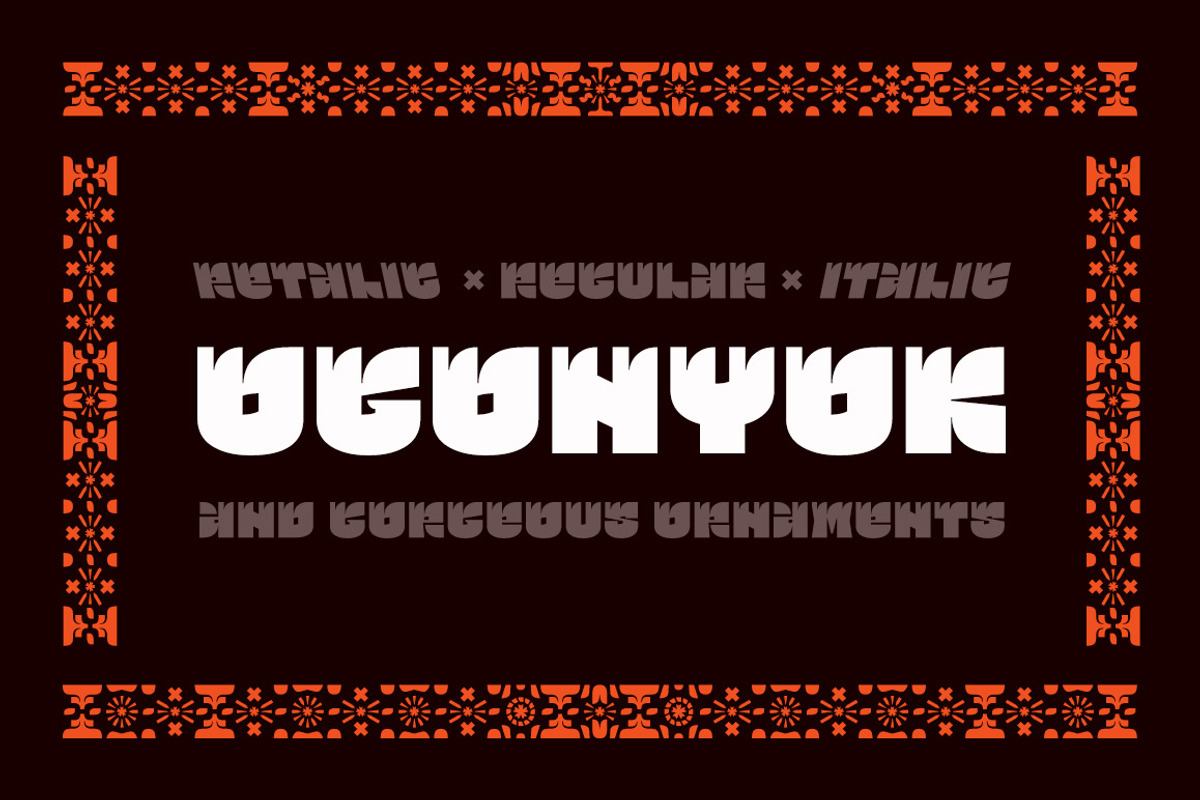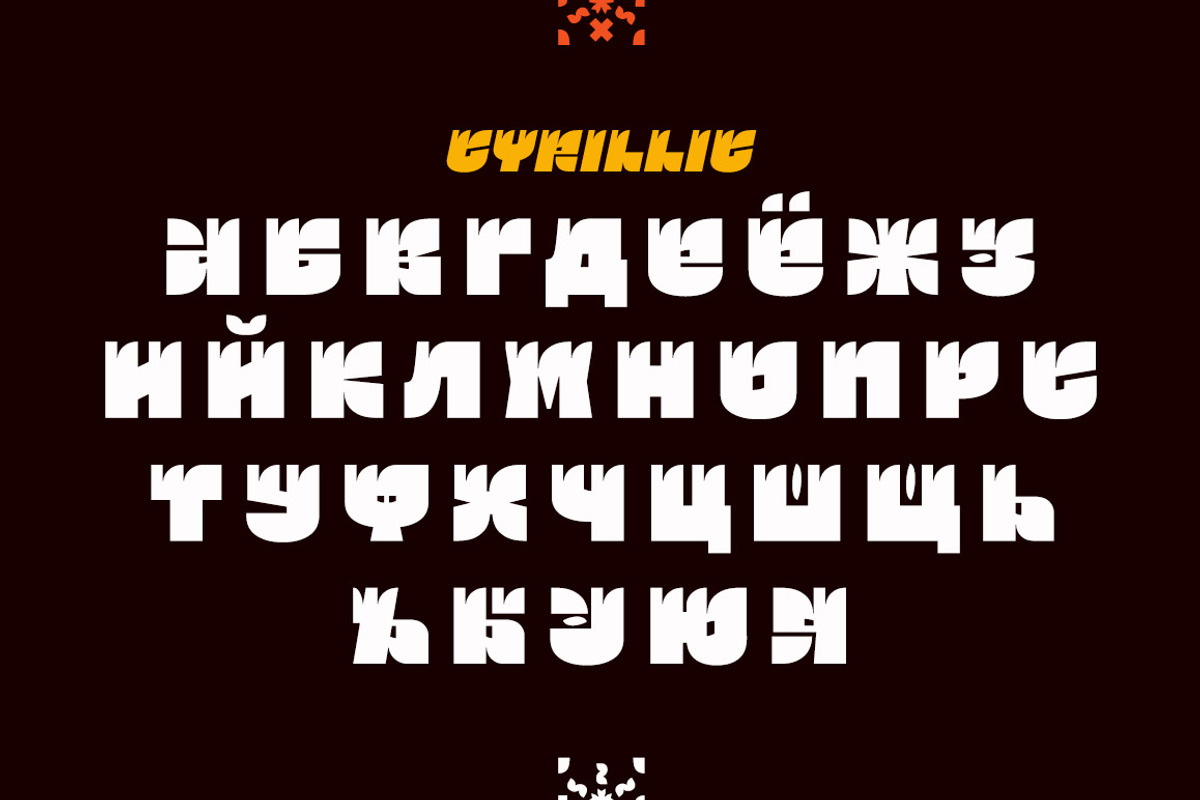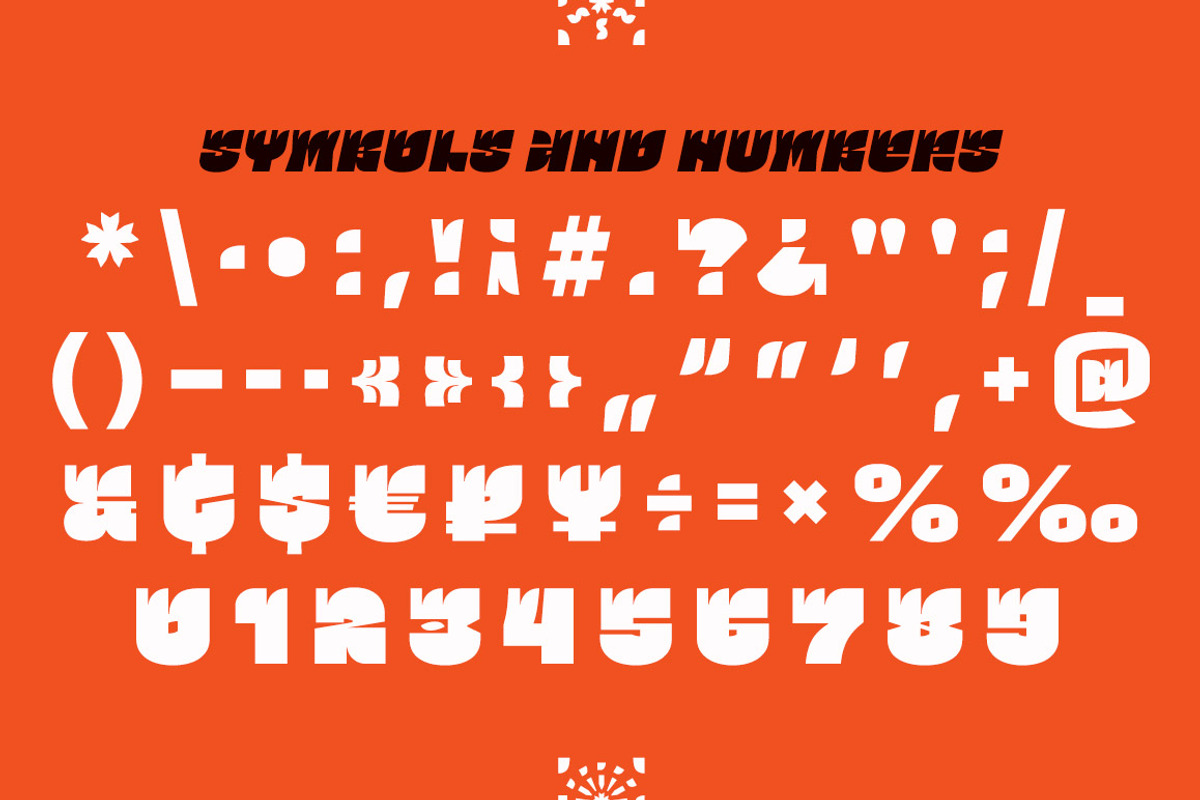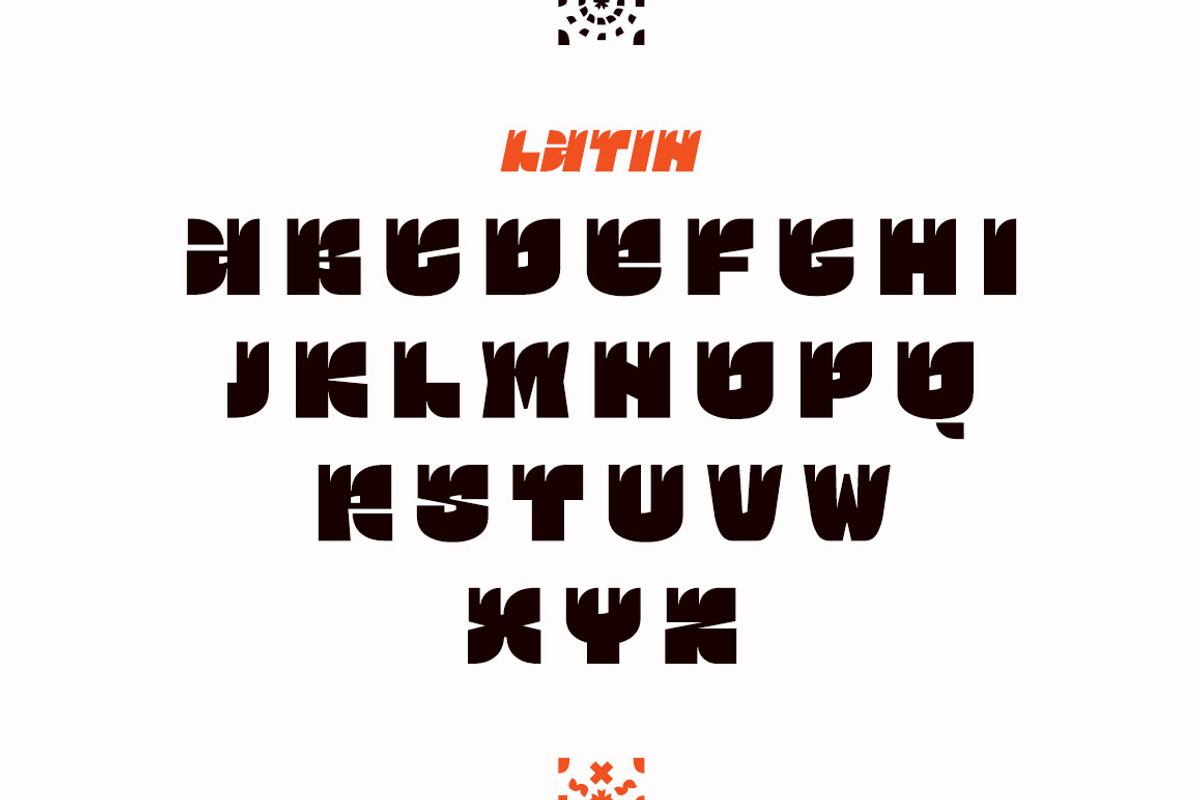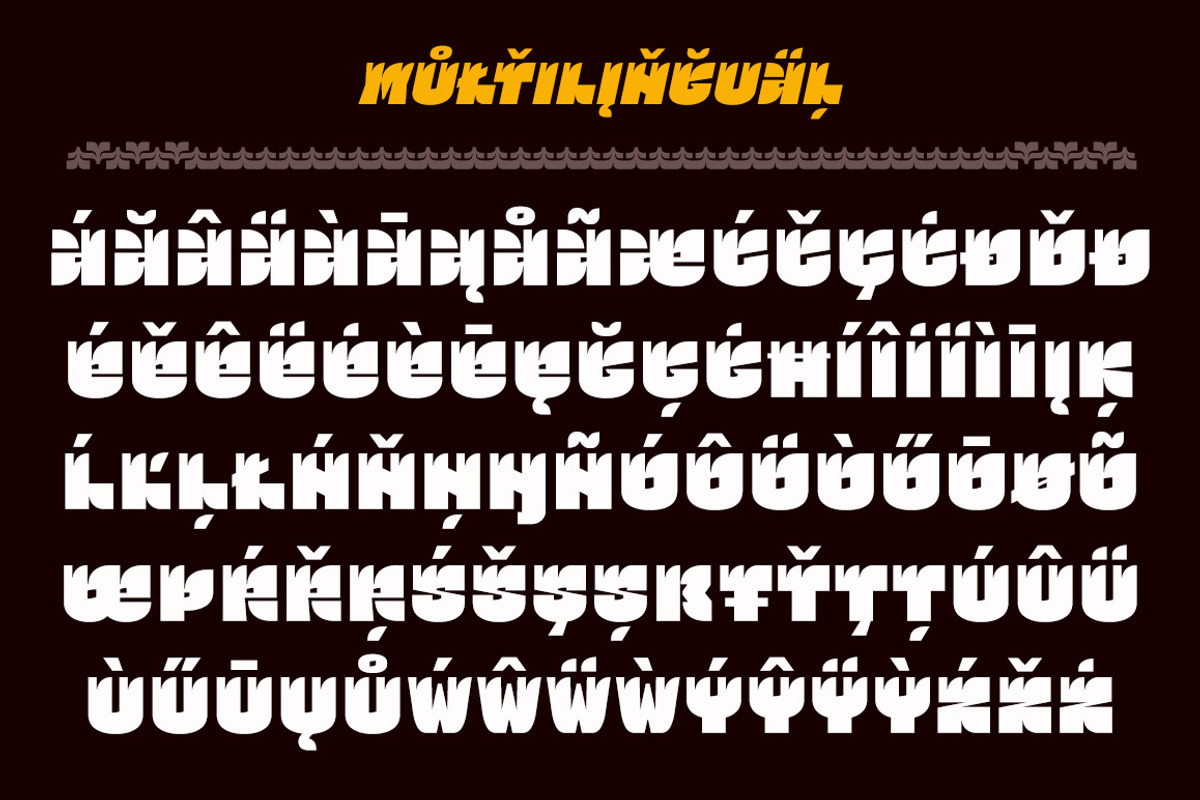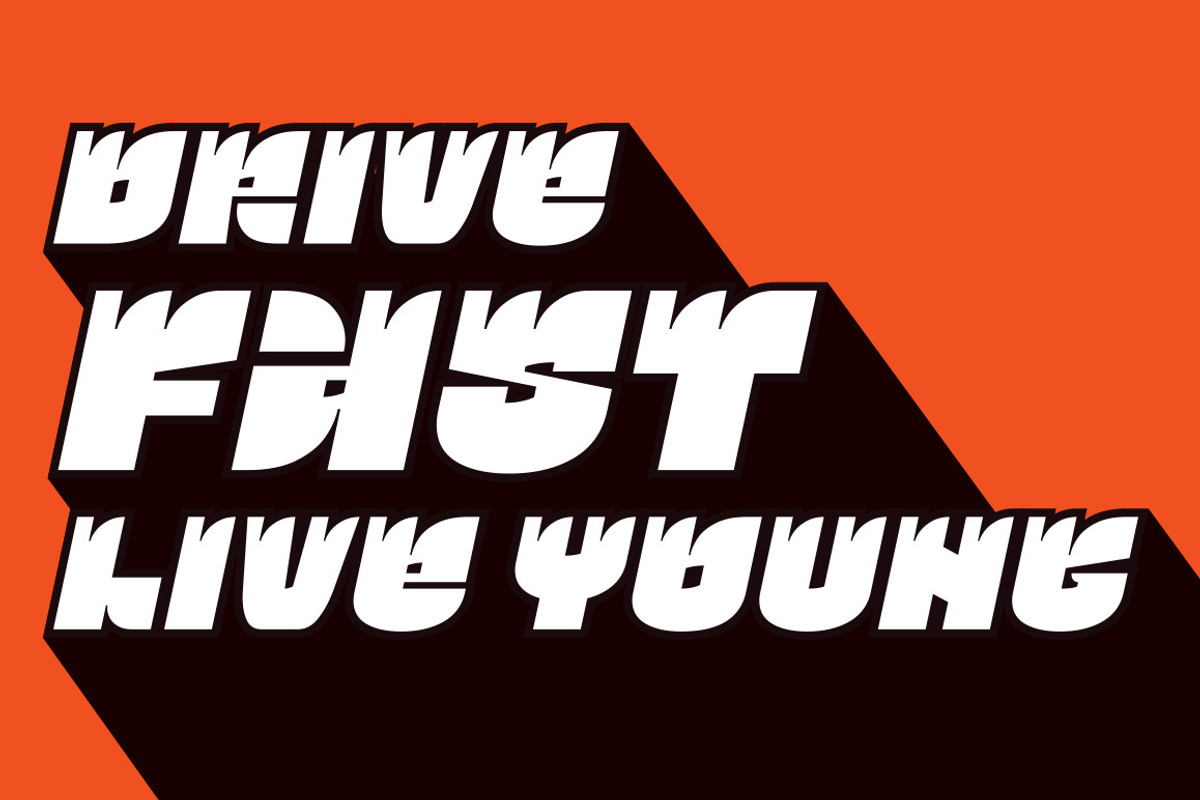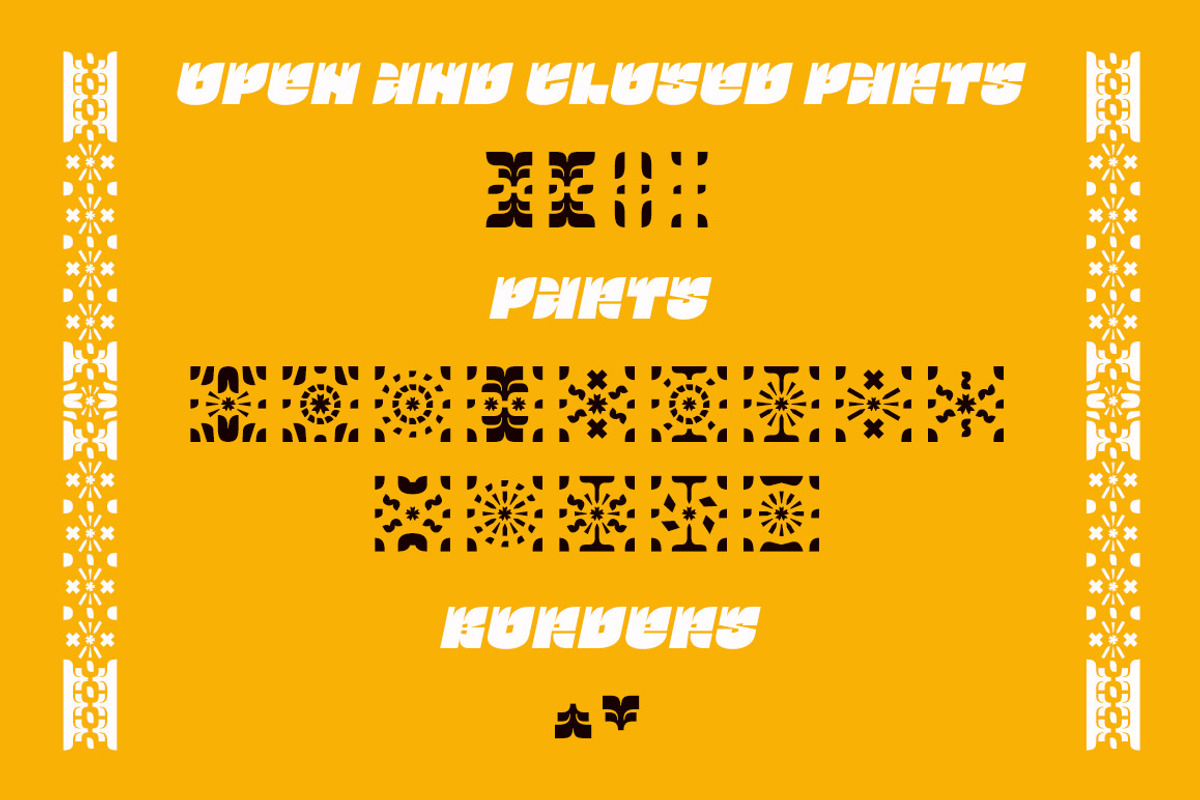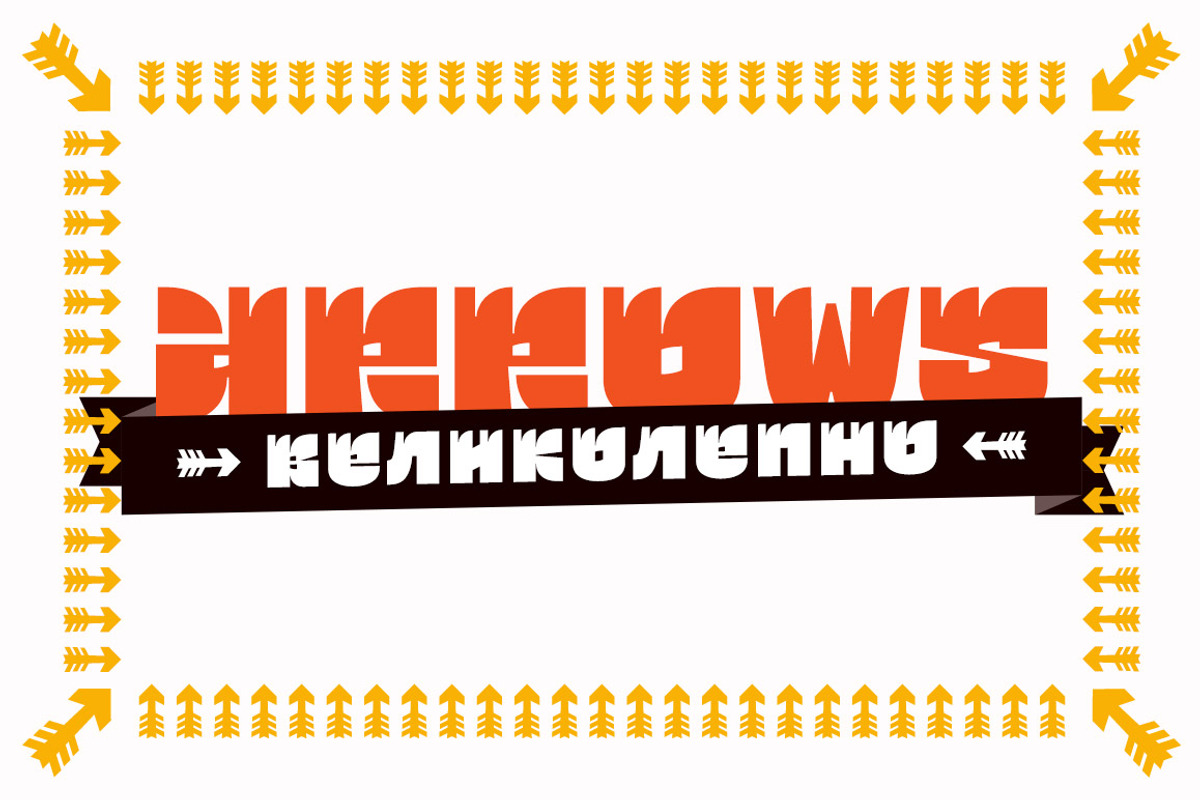
Ogonyok - full pack
Ogonyok - full pack by Russian Fonts is a font selected for branding, posters, packaging, typography.
- For example choose «Ogonyok ornament» in characters panel and type: DMMEFEMMT.
- open and closed parts: DTUVWX parts: FGHIJKLMNOPQRS borders: YZ Multilingual.
Ogonyok - full pack by Russian Fonts fits naturally into Branding, posters, packaging, typography.